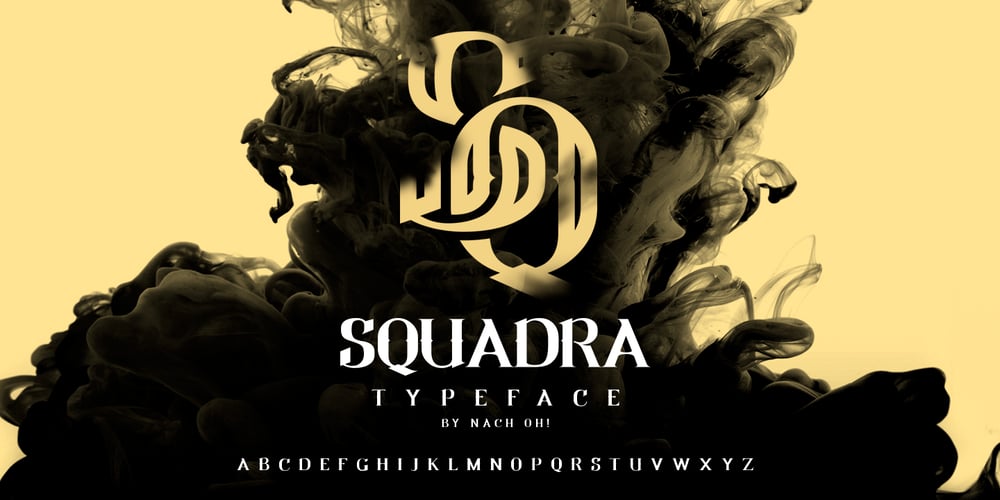
NOH Squadra Font Family was designed by Nach Oh! and published by OhType!. NOH Squadra contains 1 styles and family package options. SQUADRA is a serif typeface with more than 220 characters, framing a perfect union between typefaces of his style and unconventional shots from the calligraphic pen; Its strong and imposing appearance, the pronounced contrast between his strokes and changes in traditional aesthetics provide you with elegance and distinction to differentiate over other types of the same class. Easy modifiable and great graphic content to small and large format SQUADRA is able of generating a clear and direct message, suit almost any topic and perfect for use in posters, logos and editorial headlines. Infinitely versatile typeface that evokes both the beauty and finesse of the plants as power its thorns and its deadly poison.